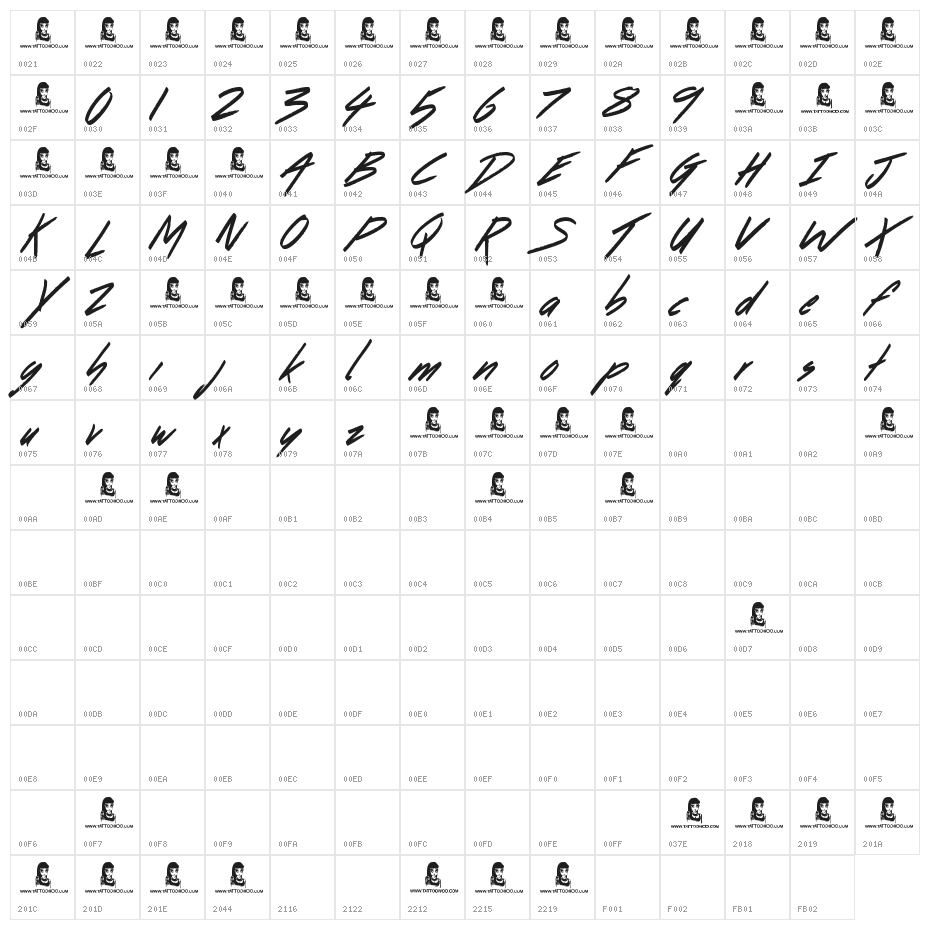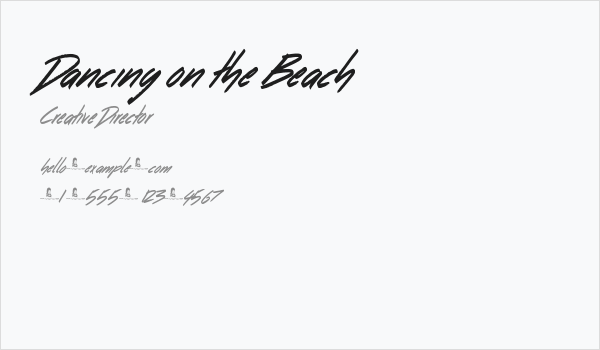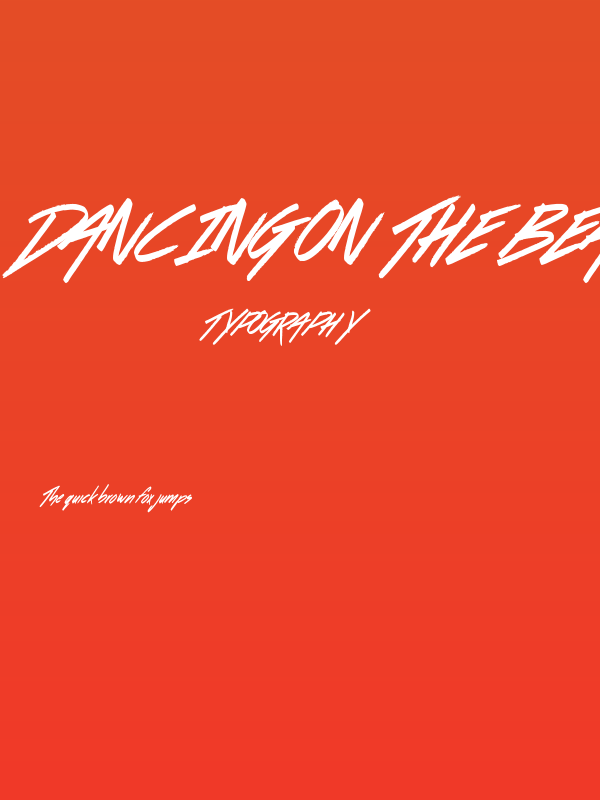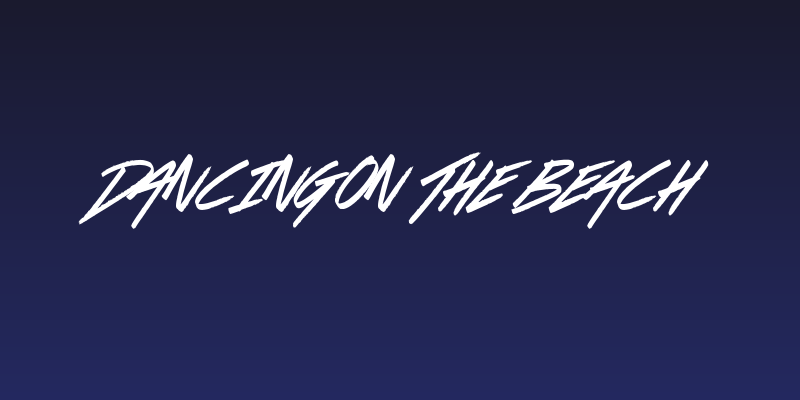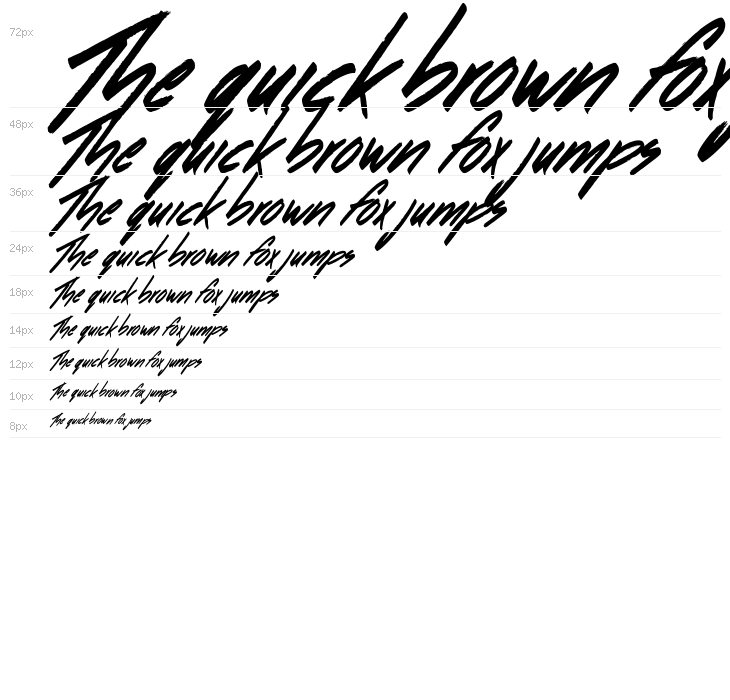
Dancing on the Beach Font
Dancing on the Beach Description
This font exudes a dynamic and energetic style, reminiscent of a lively script written with a bold brush. The letters are slanted, giving a sense of movement and fluidity, while the strokes are thick and expressive, adding a sense of urgency and excitement. The uppercase and lowercase letters maintain a cohesive style, with a slight variation in size and form that adds to the overall aesthetic. The numbers and special characters are equally bold and maintain the same energetic flow, making them stand out. This font is perfect for projects that require a touch of personality and flair.
| Proposed Projects | Ideal for branding, posters, event invitations, and any project needing a lively, personal touch. |